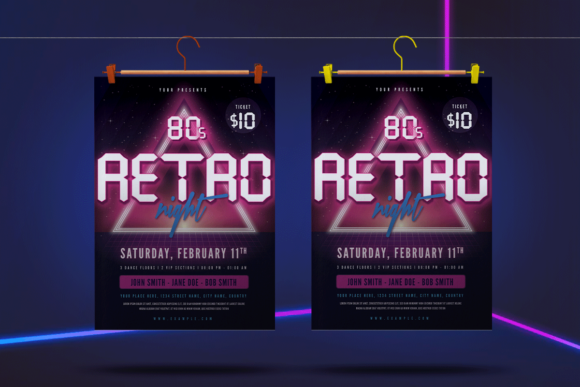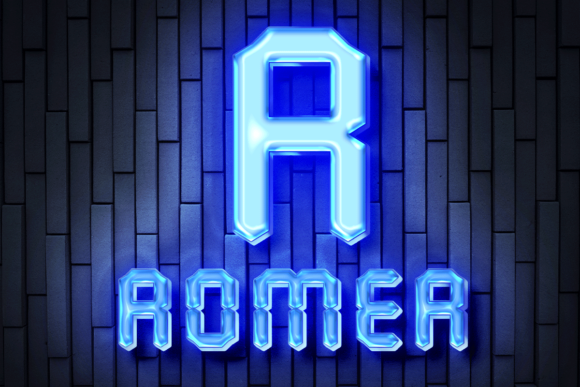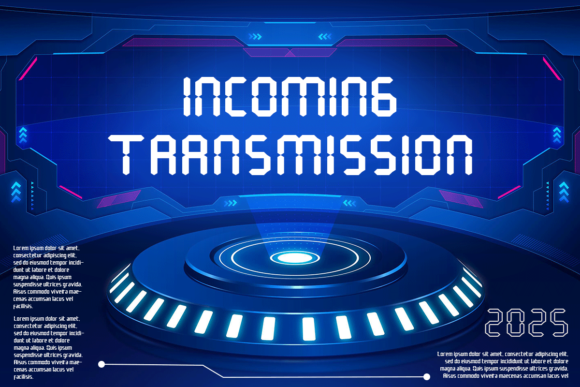
Introduction to Pixie Font Font
Fonts play a crucial role in design, and the Pixie Font font is a typeface that brings both character and versatility to any project. Whether you’re working on a branding project, a website, or a print design, the Pixie Font font offers a unique style that can elevate your work.
Pixie is a modern and cool display font.
This typeset is perfect for brand logos, website, labels or pretty much any design that requires a futuristic touch .
Key Features of Pixie Font Font
Why Choose Pixie Font Font?
The Pixie Font font is more than just a typeface – it’s a design tool that helps you communicate your message with style and clarity. Its unique character set and versatile design make it suitable for a wide range of applications, from elegant invitations to bold headlines.
With its carefully crafted letterforms and balanced proportions, the Pixie Font font ensures readability and visual appeal across all mediums.
What makes Pixie Font font special?
The Pixie Font font stands out with its unique design, exceptional readability, and versatility across various design applications.